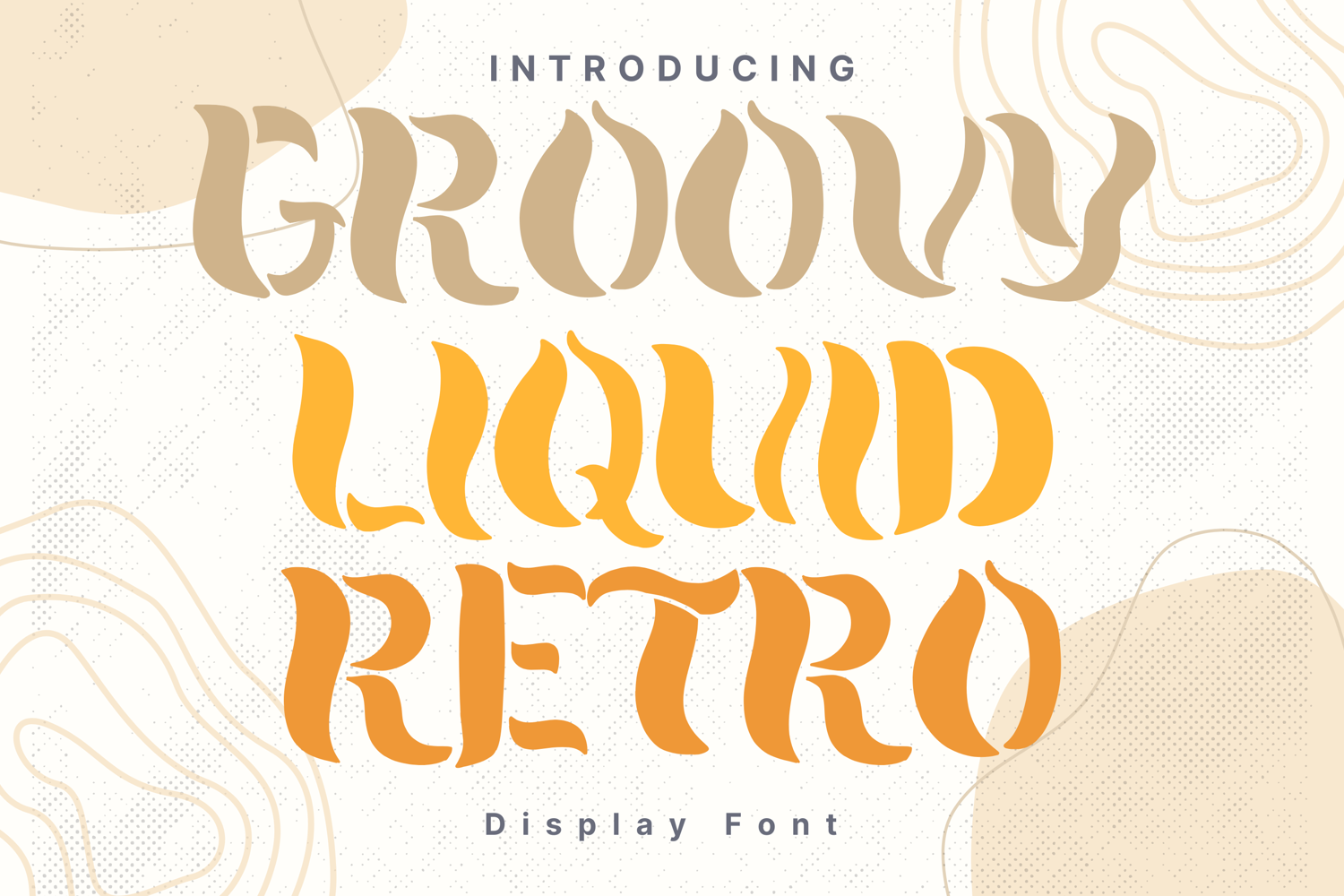
Groovy Liquid Retro Style
Groovy Liquid Retro is a bold and playful display font inspired by 1960s and 1970s psychedelic design. Its thick, flowing strokes and organic curves create a funky, wavy style that feels dynamic and fun. Perfect for retro posters, music event flyers, vintage branding, and standout creative projects, this typeface brings a nostalgic yet stylish energy. Best used for headlines, logos, or artistic compositions where a bold statement is needed.